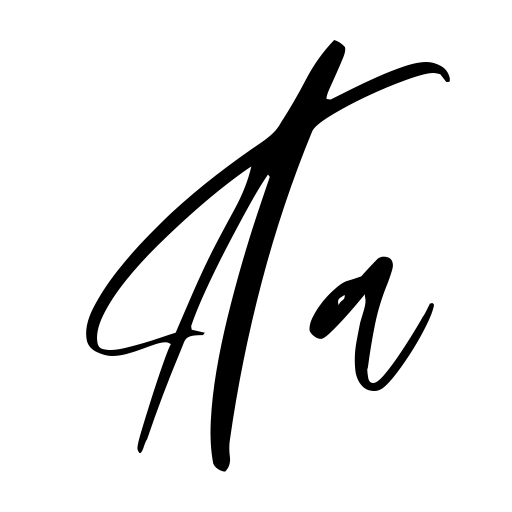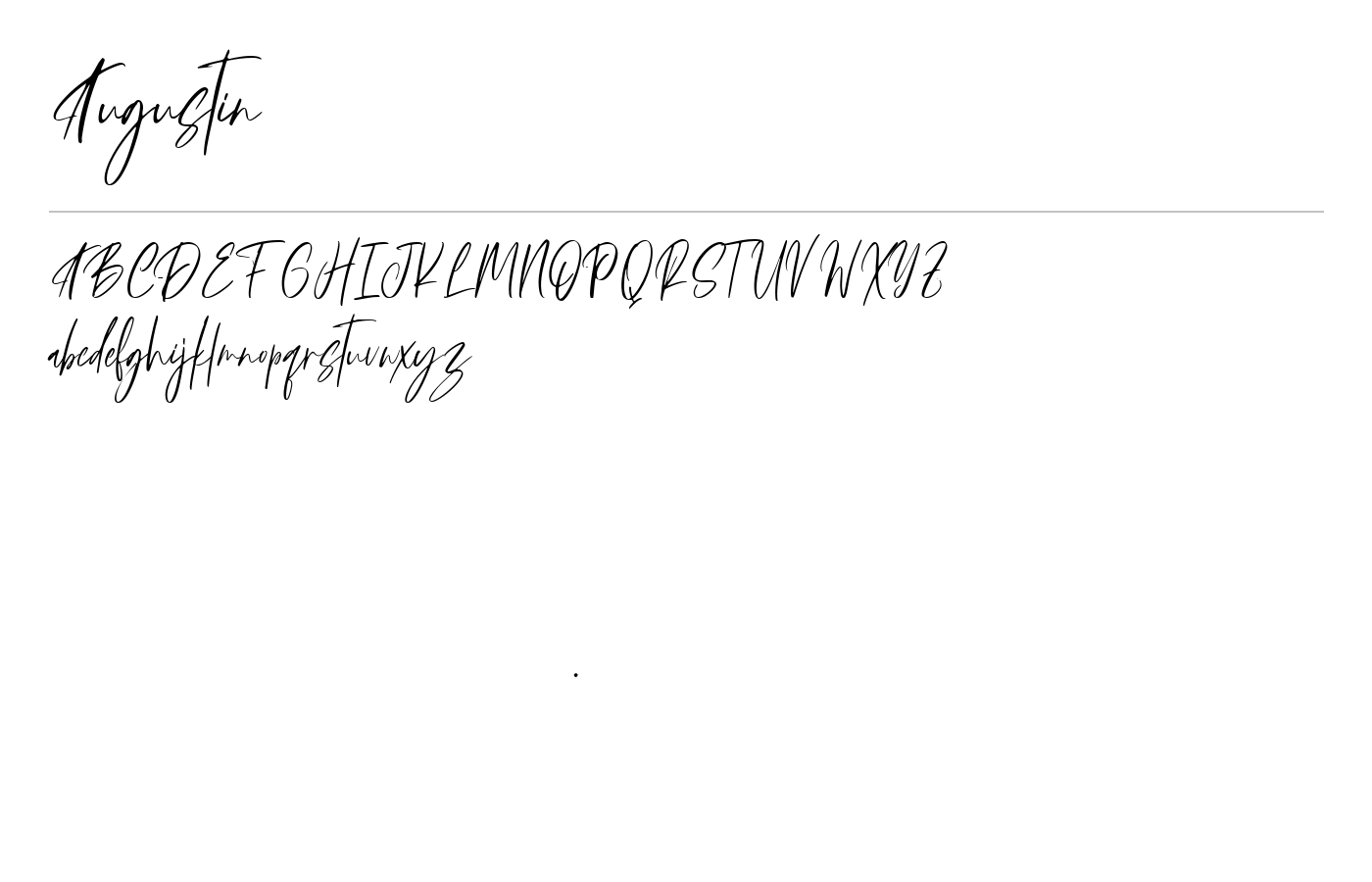
Augustin is an elegant and flowing script font characterized by its thin, delicate strokes and natural handwritten style. Its tall, narrow letterforms with slight irregularities convey a personal, artistic feel, making it perfect for invitations, branding, and creative projects that seek a sophisticated yet approachable touch. This font shines in designs where a graceful, handcrafted look is desired, enhancing the visual charm and intimacy of the message.
Augustin Font